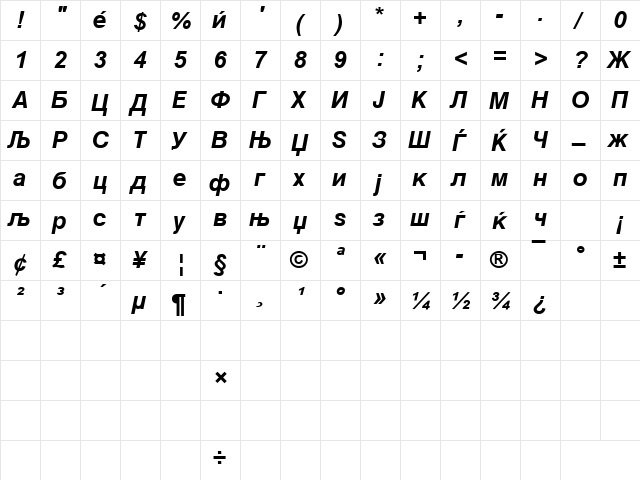
Macedonian Helv Bold Italic
Design Context for Macedonian Helv Typeface
Macedonian Helv is a composed and adaptable typeface that performs quietly and consistently across a wide range of design contexts. The dynamic lean of this cut emphasises speed and emphasis in any layout. Its bold stroke weight gives it real presence on the page.